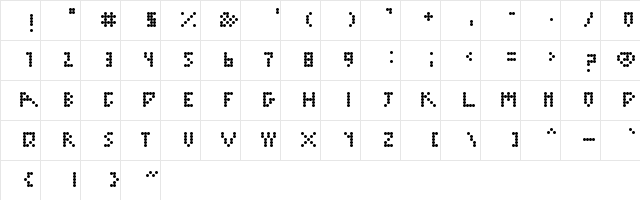
Gone GaGa Regular
Design Context for Gone GaGa Typeface
Gone GaGa takes a measured approach to typography — its balanced proportions and neutral character make it a reliable workhorse for both digital and print work.